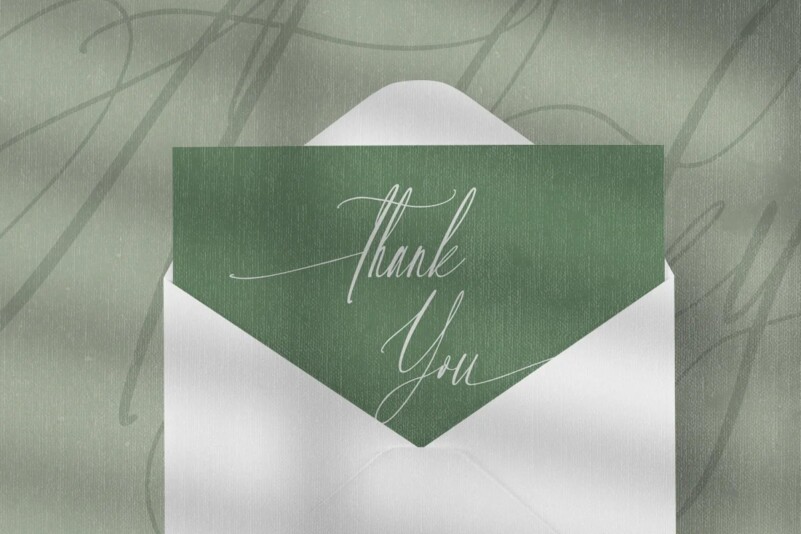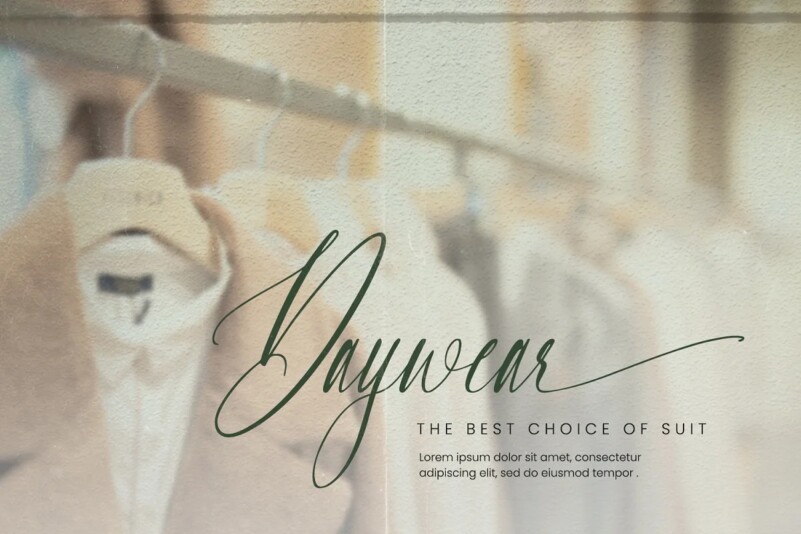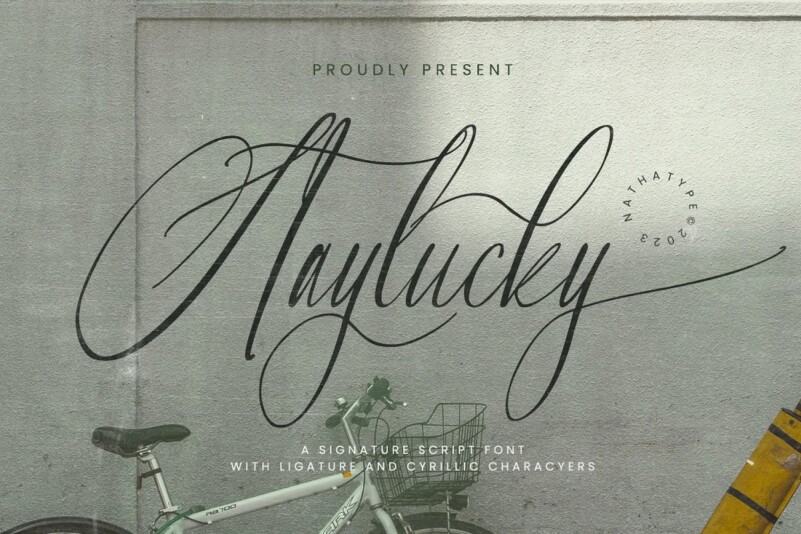
Staylucky font
Staylucky is a script font created to be a visually attractive handwriting which is perfect to express modern, elegant nuances with personalized designs to amaze readers and to protrude your messages. It is made in cursive styles in which the letters are interconnected. Details on each letter show high contrast and curvy wipes on each edge. Its complicated forms made it more suitable to apply for big, short texts. You can also enjoy the available features here as well.